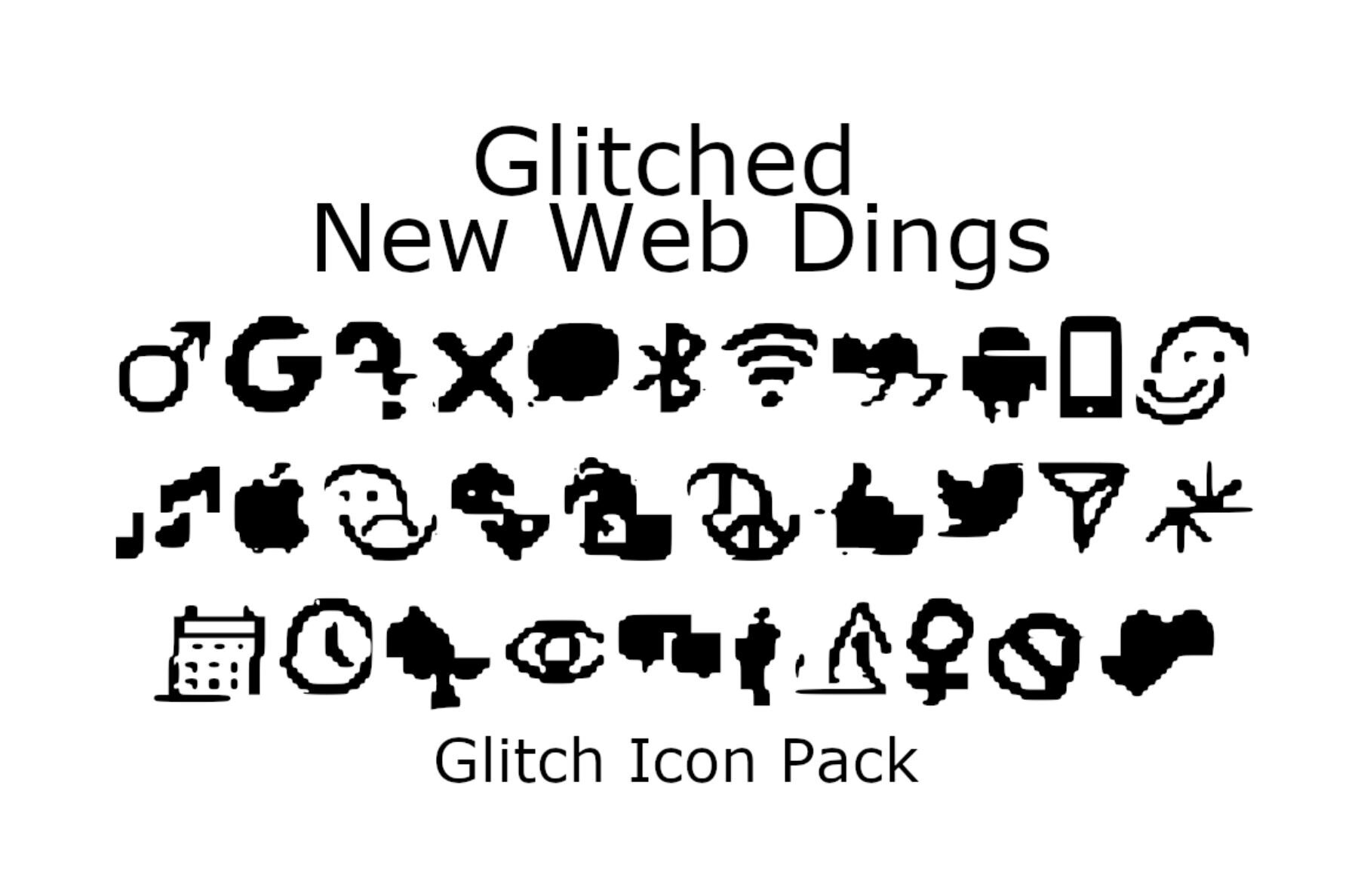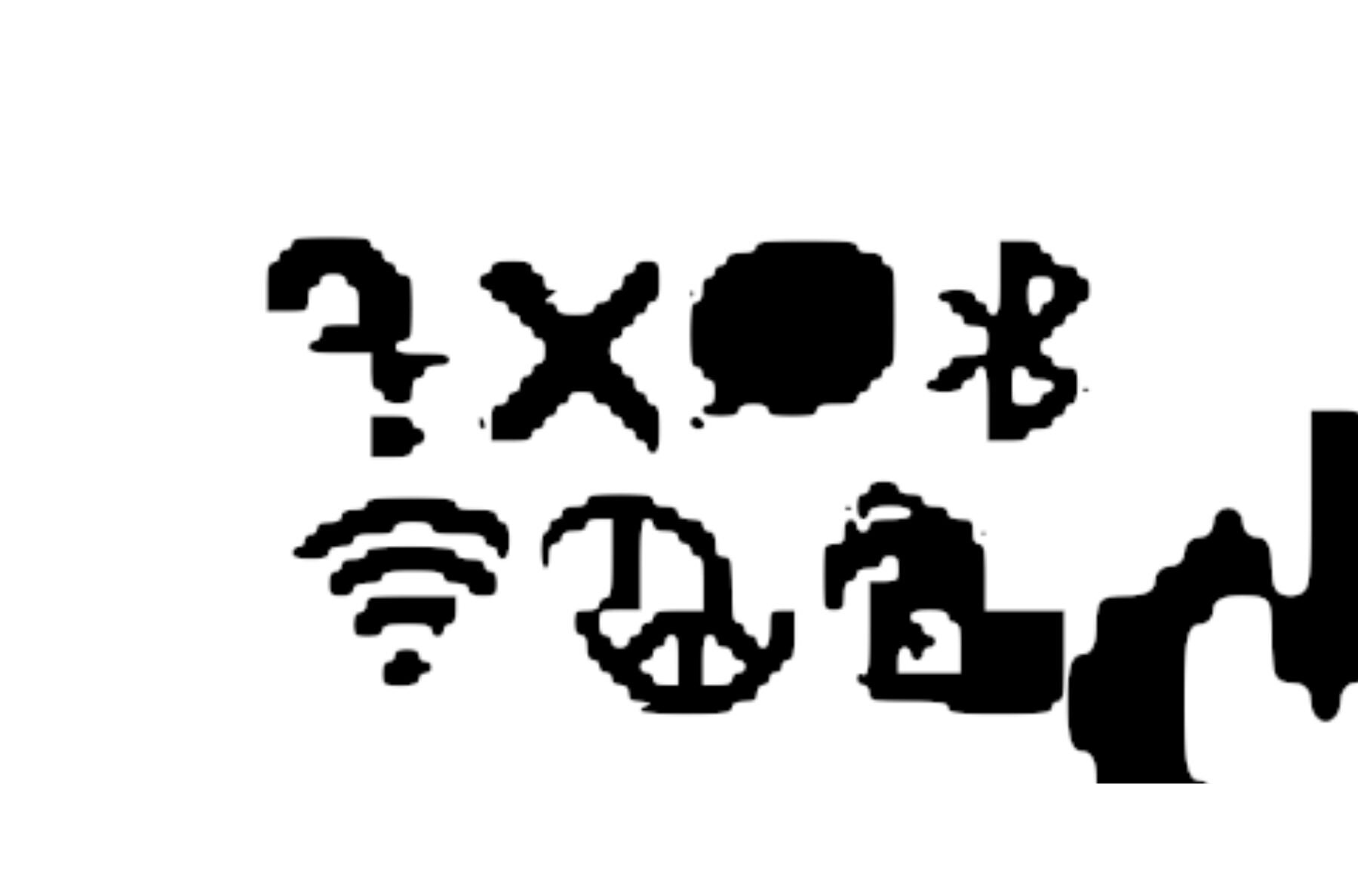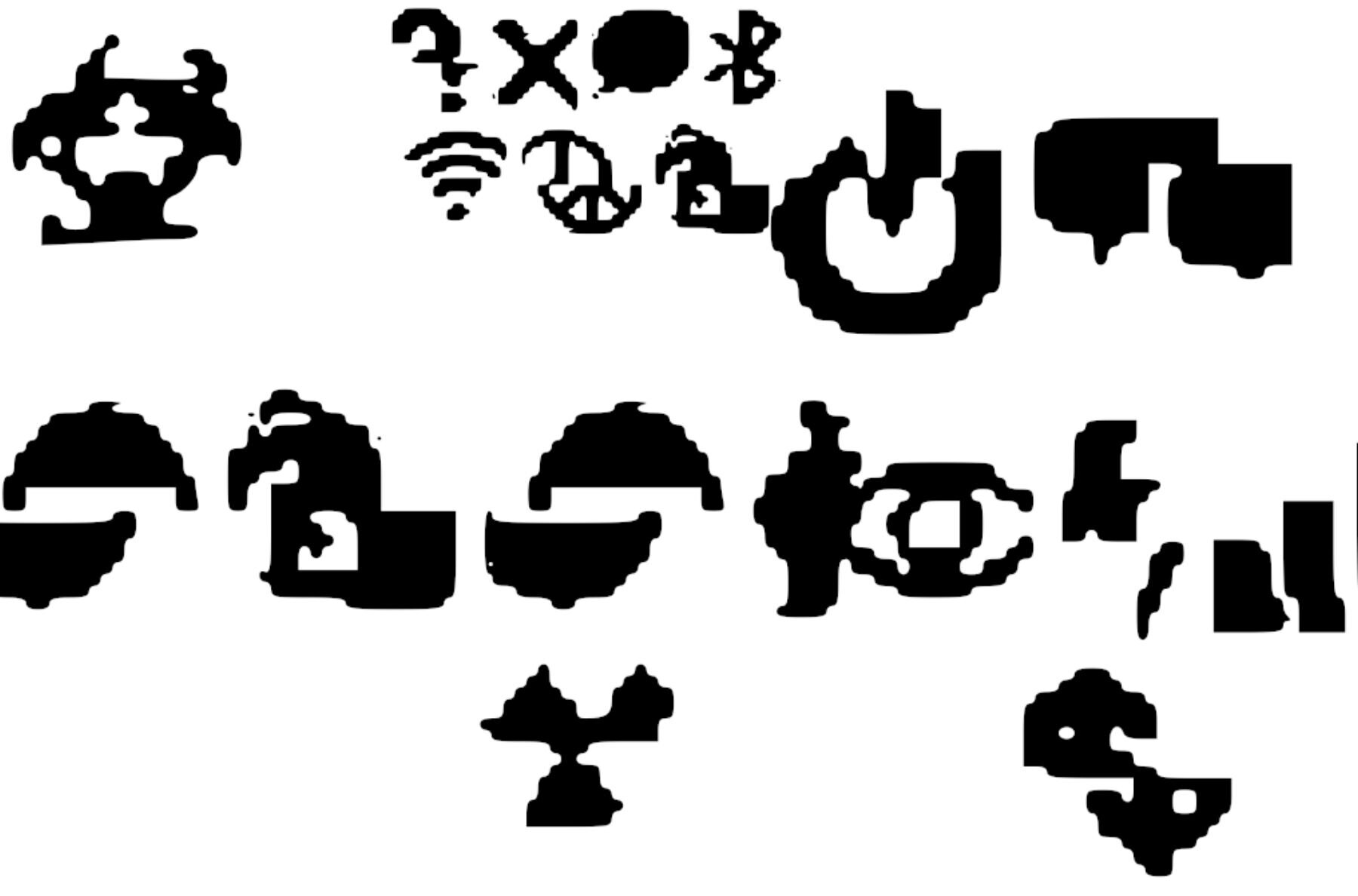
New Web Dings Glitched Font
New Web Dings Glitch
Unlock the potential of glitch design with New Web Dings Glitched. This unique collection offers a twist on traditional webdings and windings, presenting them in a beautifully broken style. Perfect for digital art or design projects that crave an edgy, web-inspired element.New Web Dings Glitched